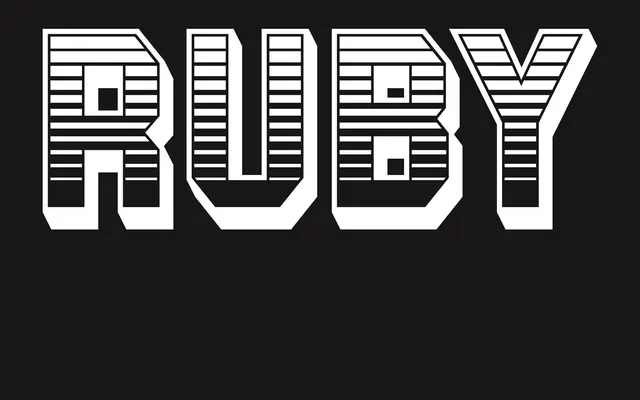
VTC Ruby
Vocal Type · Ted Davis
A revival of the 19th-century inline display typeface historically known as Gothic Shade, renamed in honour of Ruby Bridges to sever it from its toxic ATF-era designation.
The typeface traces a complicated lineage from a French foundry to the Dickinson Type Foundry in 1850s Boston, before passing into the American Type Founders catalogue where it was recast in 1933 and 1949 under the deeply offensive name Jim Crow. Vocal Type's revival introduces design refinements alongside the new name, chosen to honour Ruby Bridges, who in 1960 became the first Black child to integrate a Southern elementary school. The result is an ornamented inline display face whose history is now anchored to a story of resistance rather than oppression.
VTC Ruby is a decorative inline display type, descended from 19th-century ornamented gothics historically sold under names like Gothic Shade and English Ornamented. Its heavy strokes and shadow-inline structure place it firmly in the display category.